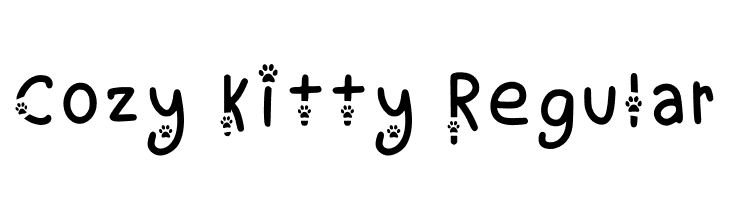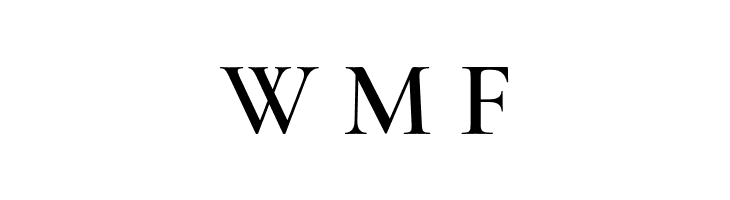
( Sharkshock - Dennis Ludlow - www.sharkshock.net )
A bold, condensed font with strong, impactful uppercase letters.
( Fonts by John Gauthier Designs )
A dynamic, brush-stroke font with an expressive, handwritten style.
A bold, playful font with rounded, whimsical characters.
A modern, italic sans-serif font with a sleek and dynamic style.
A modern, geometric font with thin, elongated characters.
A modern serif font with clean lines and balanced proportions.
A bold, geometric font with a futuristic and technical aesthetic.
( Fonts by www.blambot.com )
A bold, dynamic script font with fluid, connected letterforms.
( Fonts by Zdenek Gromnica - www.futuremillennium.com )
A modern, italicized font with sleek, angular design and uniform stroke width.